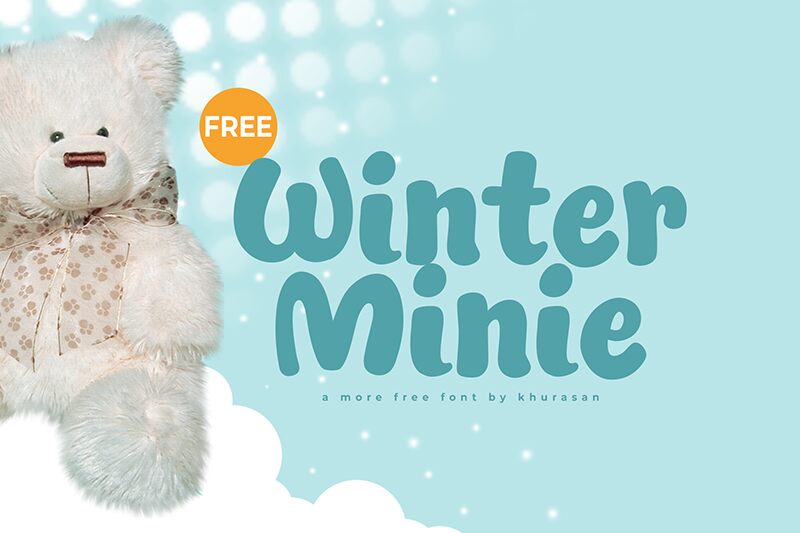
Winter Minie
Winter Minie font is Khurasan's display typeface with rounded edges and a bold cartoonish design. This casual free font is themed around the Winter and Summer seasons despite its name, presenting a friendly and approachable look that speaks to all ages. It's playful, creative, youthful, cheerful, and able to decorate endless fun branding projects.
Use Winter Minie for headlines posts on social media platforms and websites or use it for applications because this font can be greatly paired with visual elements like illustrations. Additionally, the typeface is suitable for posters and flyers related to school activities or summer camp features as well as books' front covers.